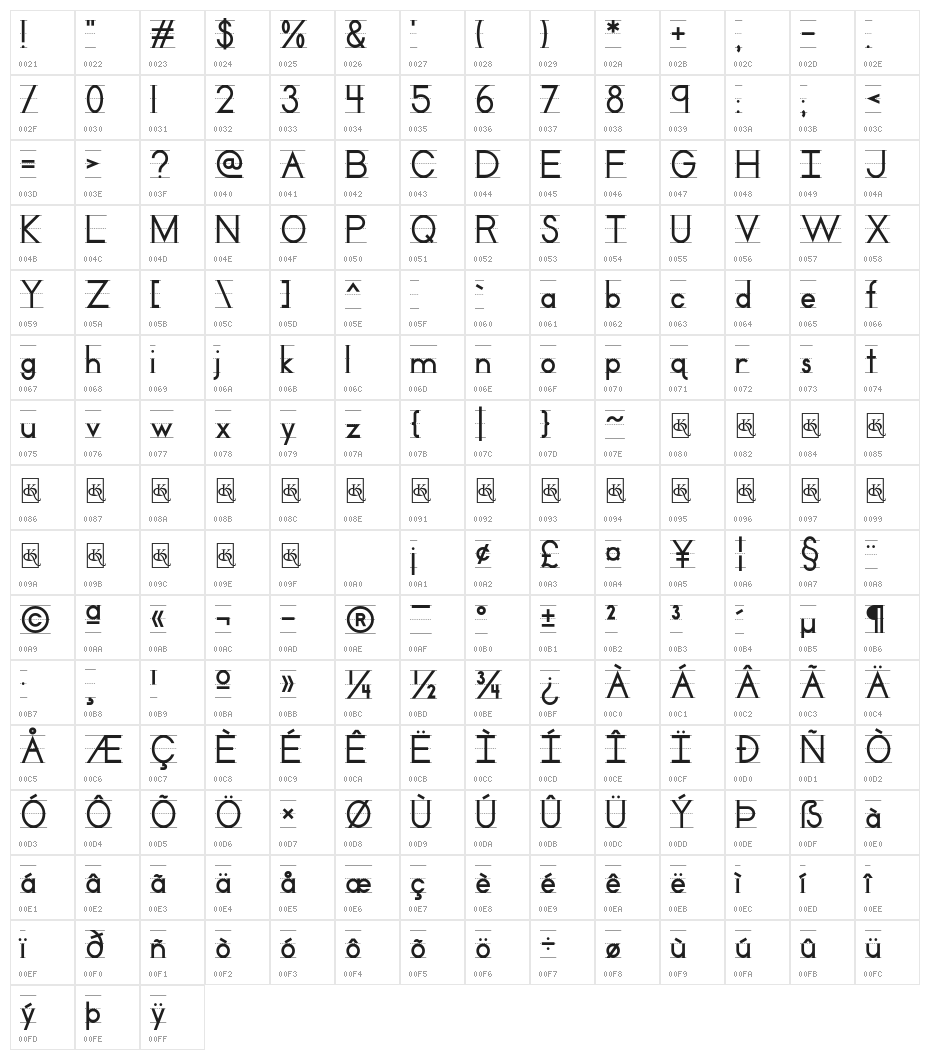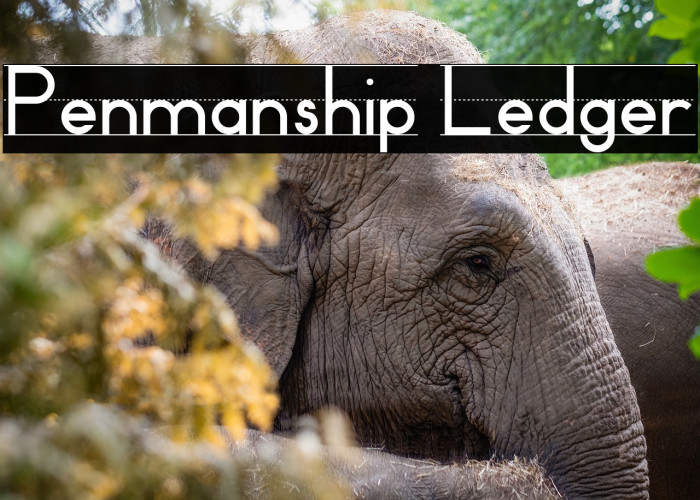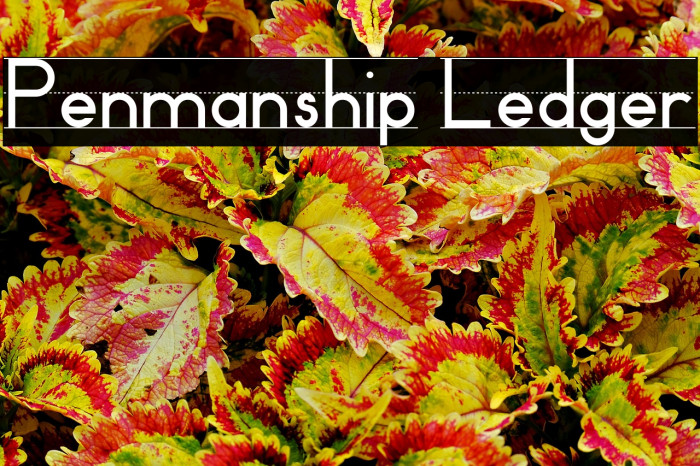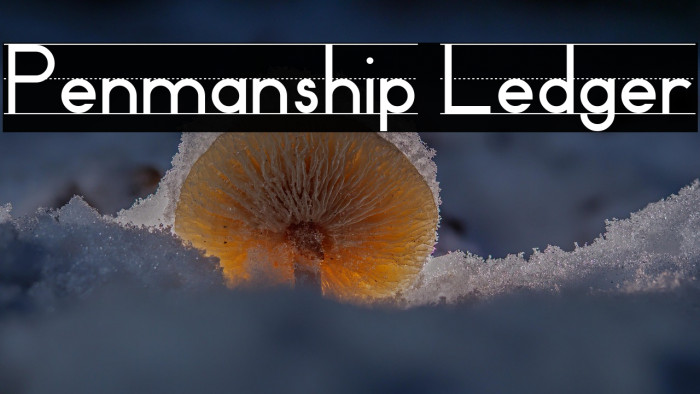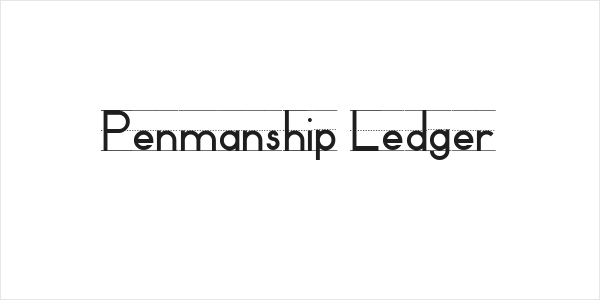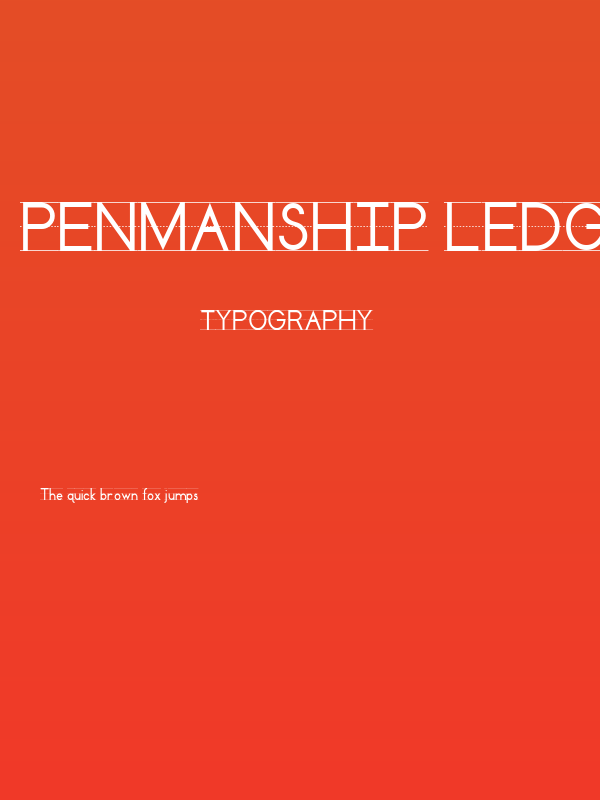
Penmanship Ledger Font
Penmanship Ledger Description
This font exhibits a clean and structured design, reminiscent of traditional penmanship styles. The uppercase letters are tall and slender, with consistent stroke widths that convey a sense of precision and clarity. The lowercase letters maintain a similar aesthetic, with rounded forms that enhance readability. The numerals are well-proportioned and align seamlessly with the overall style, ensuring they stand out without disrupting the flow. Special characters are crafted with the same attention to detail, making them suitable for a variety of uses. The font's balanced design is ideal for projects that require a touch of elegance and formality, while still being approachable and easy to read.
| Proposed Projects | Ideal for formal documents, educational materials, signage, and branding that requires a classic touch. |